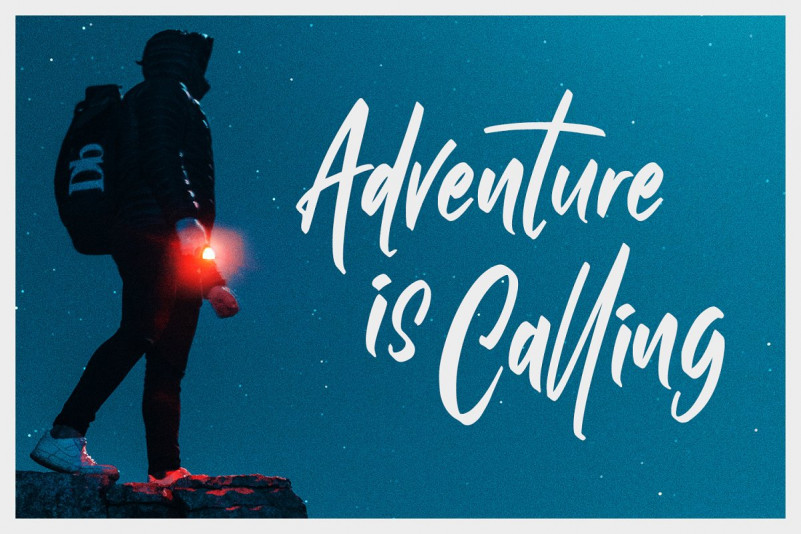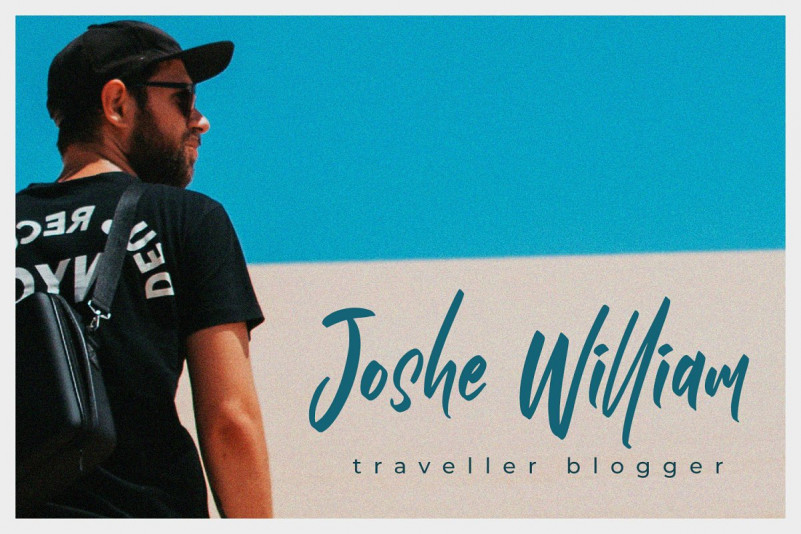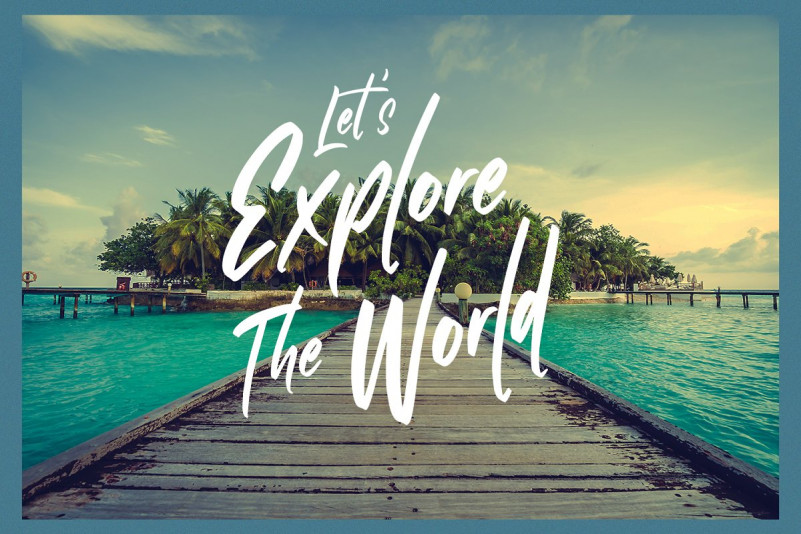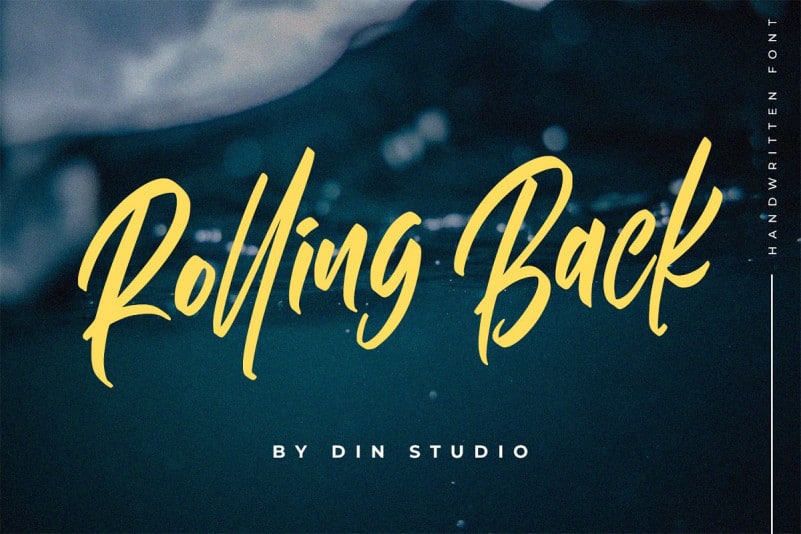
Rolling Back Script Font
Say hello to the Rolling Back Script Font! This is handwritten font. It is slender, feminine and classy, while still maintaining a friendly feel! It is designed and shared by Din Studio. Rolling Back Font made with naturally handwritten. Rolling back font has a casual style. This font looks cool in any design and very recommended for logo, poster, branding, quote, or anything else that needs a touch of elegance.